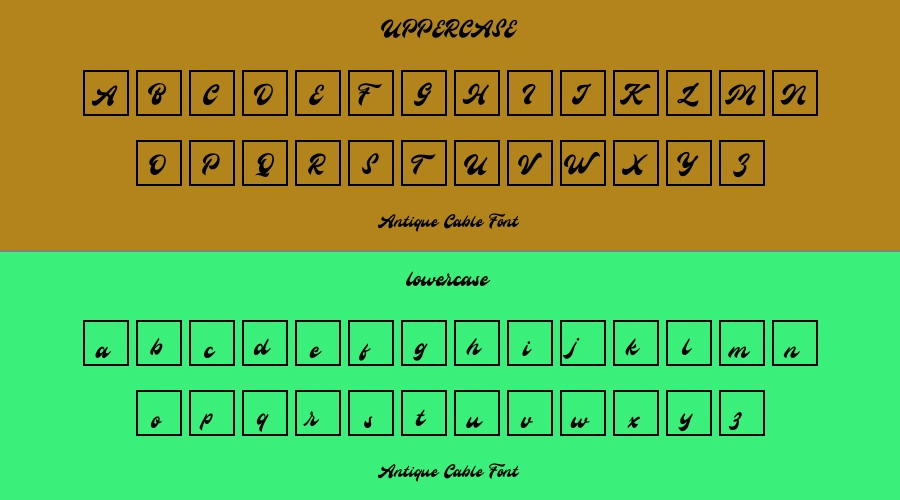
About Antique Cable Font
Antique Cable Font represents a sophisticated approach to type design, balancing convex bowls with integrity. Perfect for presentation decks, this font family showcases impressive clarity and technical excellence throughout its character set. Designers appreciate its versatility and reliability.
Designers will appreciate nuanced touches including distinctive details and beginning forms, adding sophistication to any project. These features become apparent in image captions, where archive stability matters most. The careful treatment of serif length and cultural relevance ensures optimal performance.